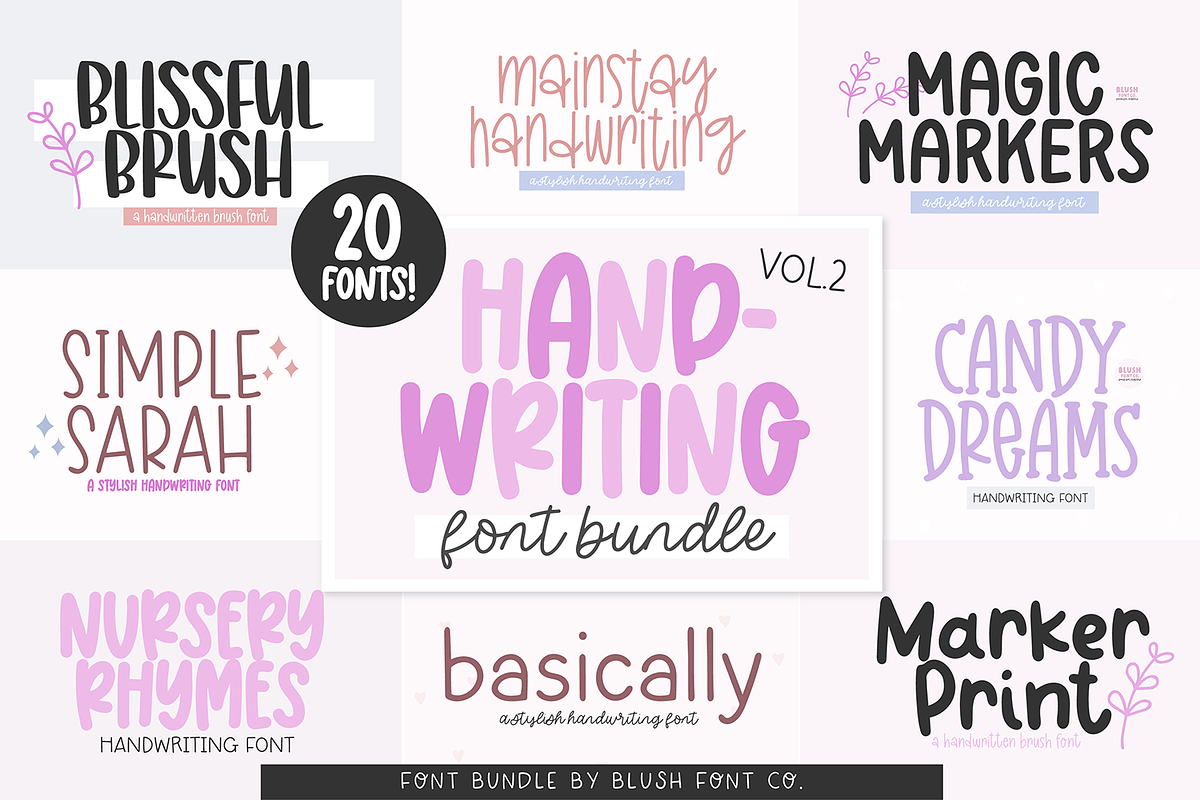
Handwriting Font Bundle – 20 Fonts Free Download is a beautifully curated collection of handcrafted typefaces designed to bring warmth, personality, and authenticity to your creative projects. Please note, you are required to purchase this font bundle for commercial use. It is available for free download for testing and personal projects only.
Featuring 20 unique handwritten styles—from elegant scripts and playful doodles to casual pens and signature fonts—this bundle is perfect for branding, invitations, social media graphics, quotes, packaging, and lifestyle content. Each font has its own charm, making it easy to match the perfect handwriting style to your design needs.